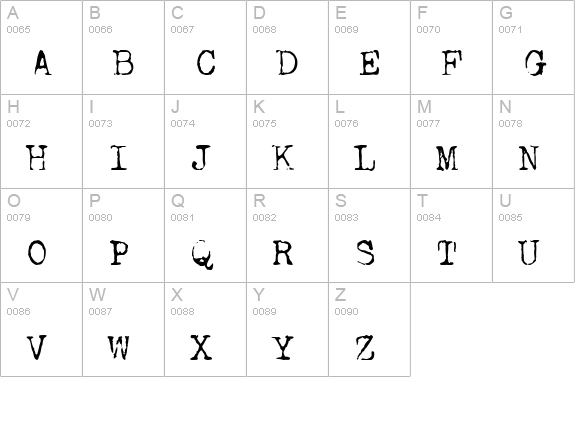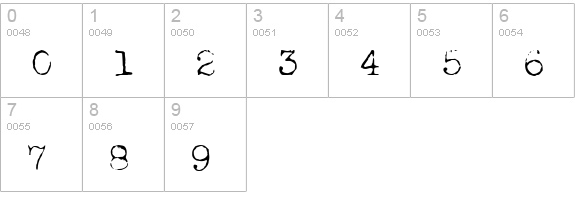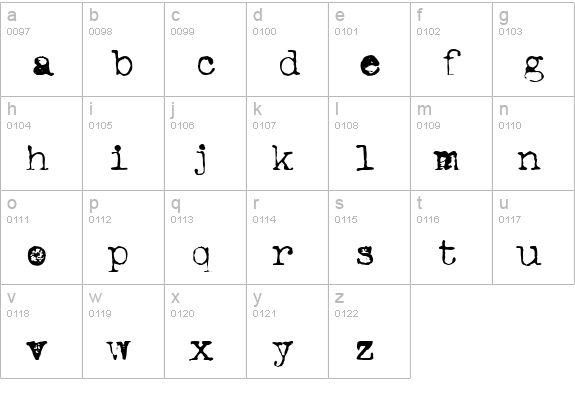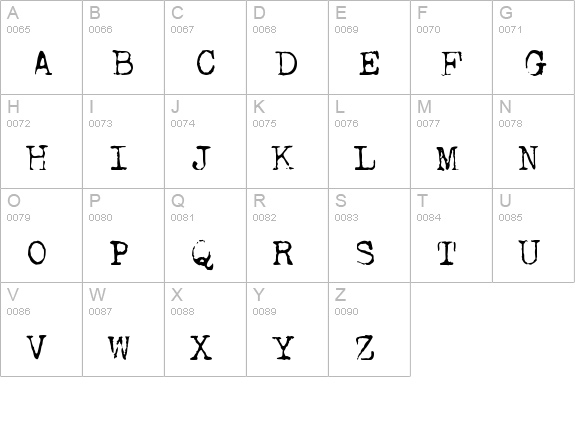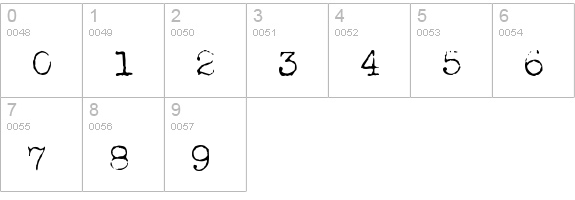
VintageTypewriter One Font Details
Introducing VintageTypewriter One, a timeless font that brings back the nostalgia of classic typewriters. With its elegant and authentic design, this font captures the essence of a bygone era, where typewriters were the ultimate tool for writers and creatives. VintageTypewriter One is a meticulously crafted typeface that beautifully replicates the imperfect charm of typewritten text. Each character carries the distinct marks of a real typewriter, from the slightly uneven alignment to the subtle variations in ink density. This attention to detail gives the font a unique vintage appeal that is sure to add character and depth to any project. One of the best things about VintageTypewriter One is that it is free to download. That's right, you can bring the beauty of typewritten text to your designs without spending a dime. Simply head over to FontsMarket.com, where this font is freely available for download. Whether you're working on a retro-inspired poster, a vintage-themed website, or a nostalgic book cover, VintageTypewriter One will bring an authentic touch that will transport your audience back in time. Don't miss out on the opportunity to add this incredible font to your collection. Download VintageTypewriter One today and start incorporating its timeless charm into your creative projects.